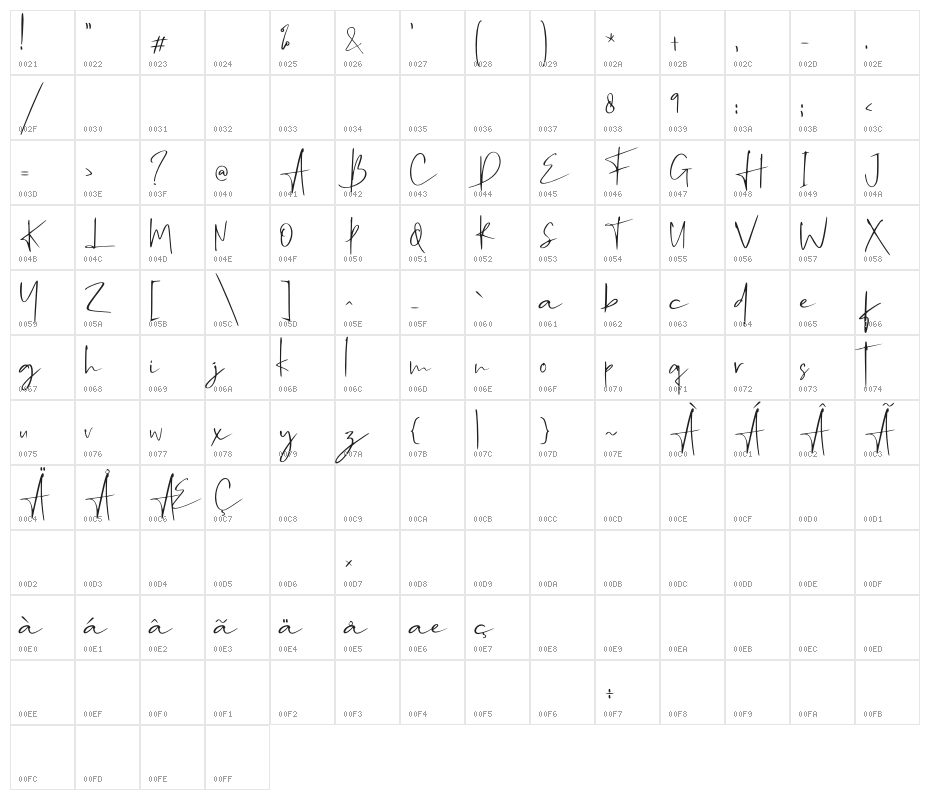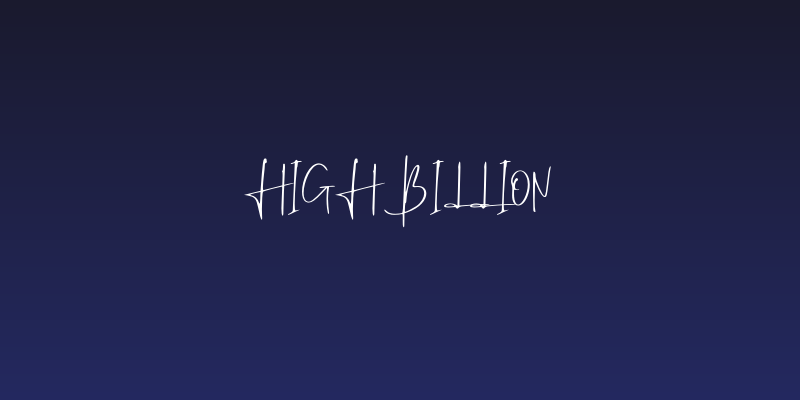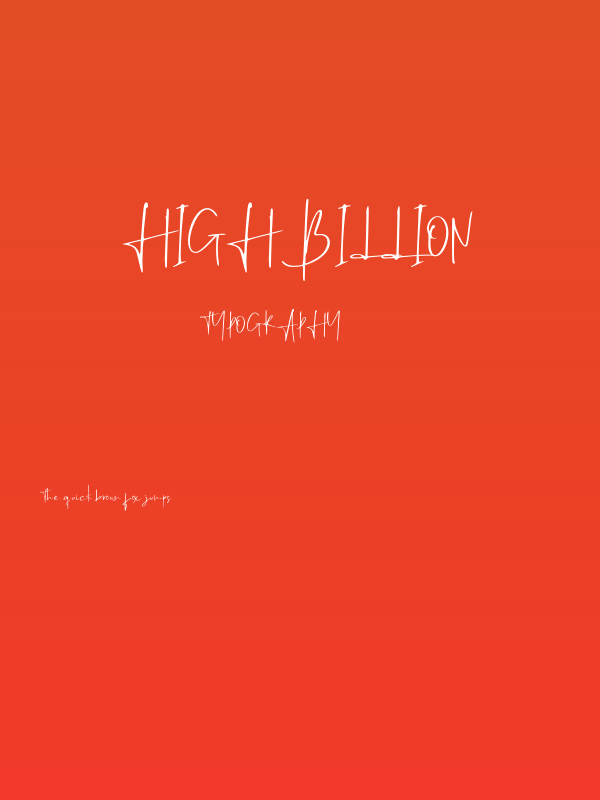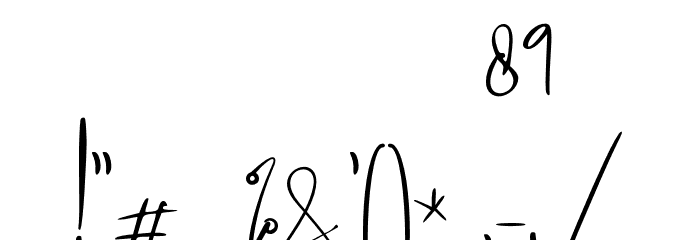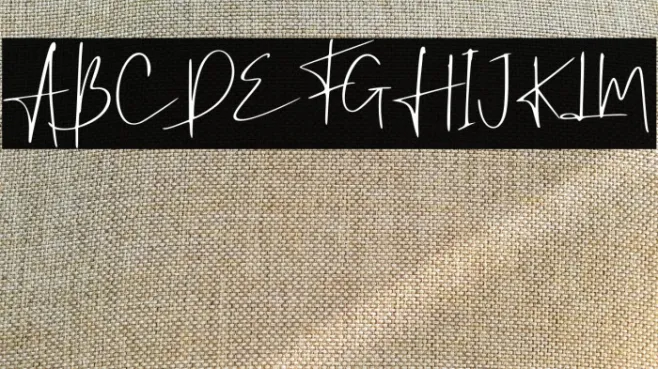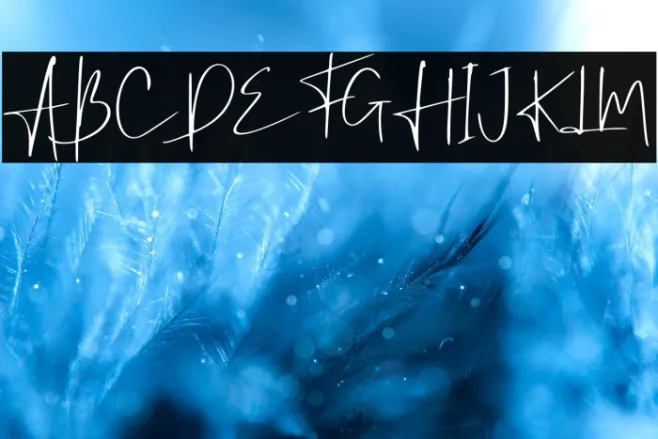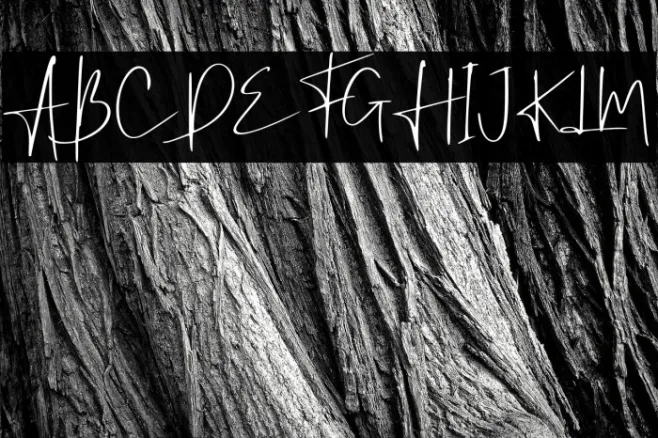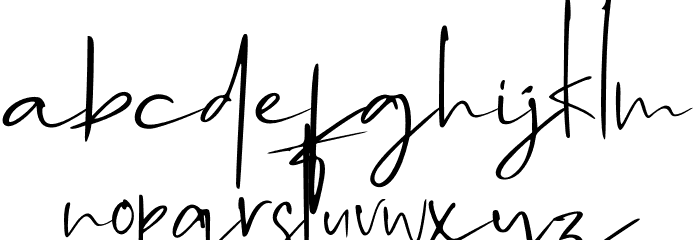
High Billion Font
High Billion Description
This font exhibits a dynamic and expressive handwritten style, characterized by its fluid and irregular strokes. The uppercase letters are tall and narrow, with a playful, slightly chaotic appearance, while the lowercase letters maintain a consistent flow with varying heights and angles. The numbers and special characters follow the same energetic style, adding to the font's overall lively and informal feel. The strokes are thin and vary in thickness, giving the font a sense of movement and spontaneity. This font is ideal for projects that require a personal touch or a creative, artistic flair.
| Proposed Projects | Ideal for creative projects such as greeting cards, invitations, personal branding, and artistic posters. |